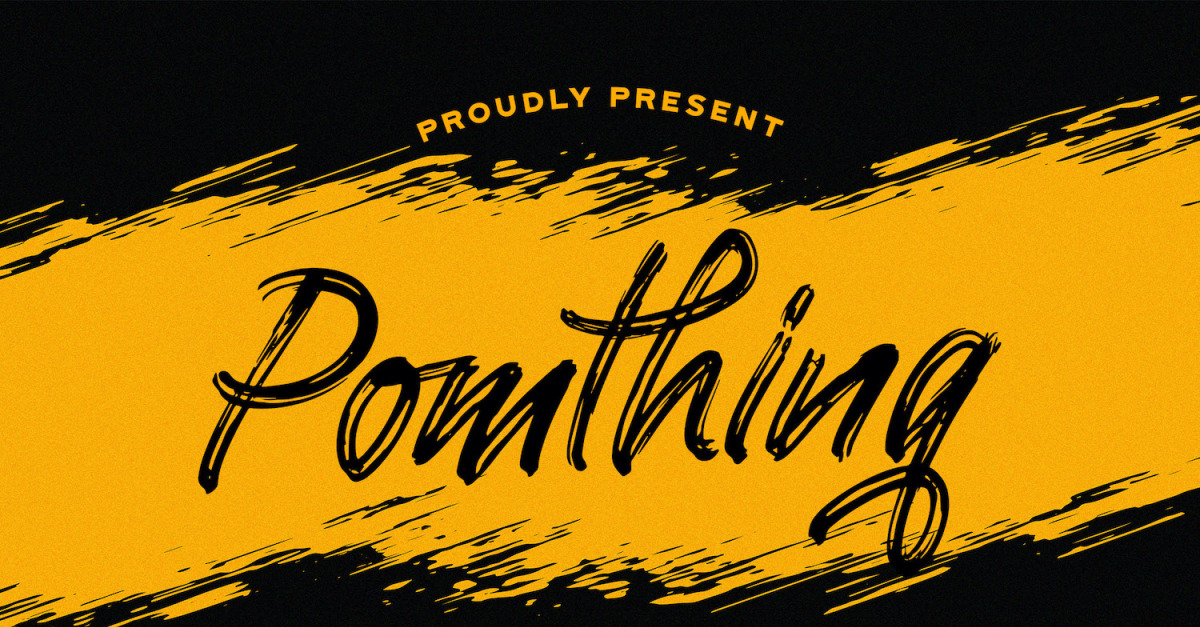
Pomthinq - Brush Cursive Font
Introducing Pomthinq - Brush Script Font
Pomthinq is a remarkable brush script font. Fall in love with its incredibly versatile style and use it to create spectacular designs!
- Ligatures
- Uppercase and Lowercase letters
- Numbering and Punctuations
- Multilingual Support